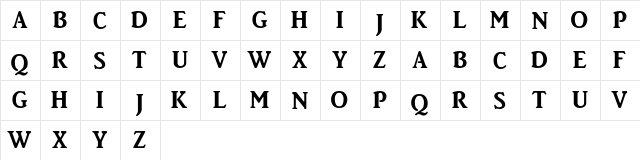
Hawley Bold Bold
Design Context for Hawley Bold Typeface
Hawley Bold takes a measured approach to typography — its balanced proportions and neutral character make it a reliable workhorse for both digital and print work. The heavy weight commands attention and anchors typographic hierarchies.